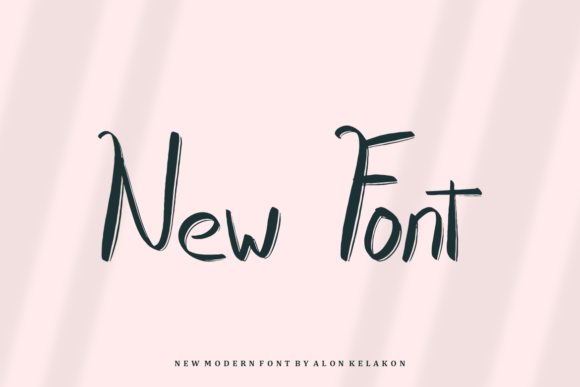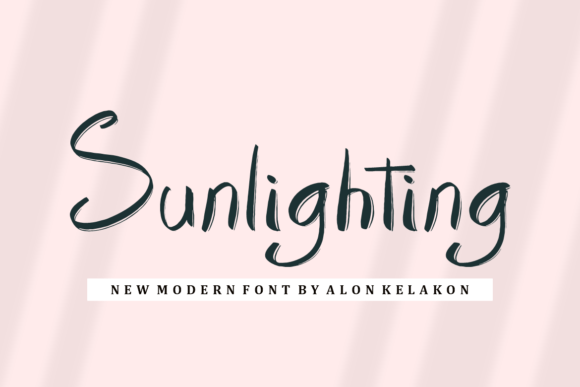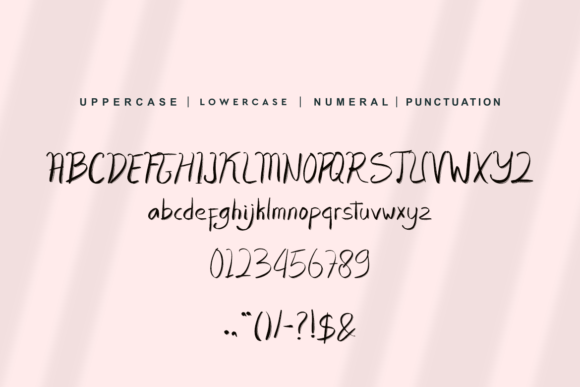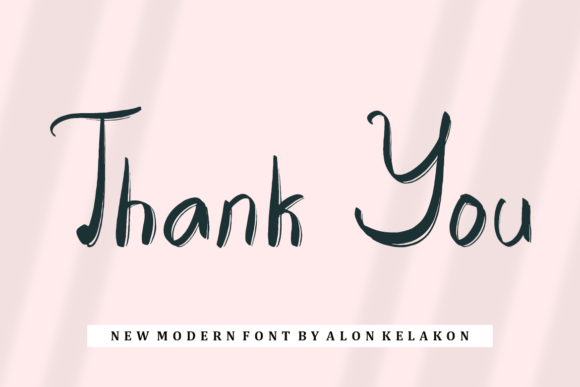
Introduction to Nattaliagoni Font
Have you ever found yourself scribbling down ideas in a notebook, and then later trying to recreate the same handwritten look on your computer? We’ve all been there. But what if you could capture that same natural feel in your designs with just a few clicks? Enter the Nattaliagoni Font, a beautiful and free downloadable font that’s about to become your new go-to design resource.
With its high-quality, handwritten look, the Nattaliagoni Font is the perfect addition to any creative project. Whether you’re working on a design for a transparent background or need a unique touch for your logo, this font is sure to deliver. And the best part? It’s completely free to download, making it an invaluable resource for designers of all levels.
Key Features of Nattaliagoni Font
- High-quality design resource suitable for creative projects, offering a unique and elegant touch.
- Features a transparent background, allowing for easy customization and versatility in design applications.
- Has a medium size, with each character optimized for clear readability at resolutions up to 300 DPI.
- Designed with attention to detail, making it an excellent choice for projects requiring a sophisticated and refined aesthetic.
- Perfect for use in various design contexts, including digital art, graphic design, and print materials.
Honest Review: Nattaliagoni Font
I recently stumbled upon the Nattaliagoni Font and I must say it’s a great addition to any design resource. The font is a high-quality, creative project that can elevate any text-based design.
What works well: ✨ The font comes with a transparent background, making it easy to layer over any background image or color. It’s also a free download, which is a big plus for designers on a budget. The font’s unique design makes it perfect for creative projects that require a touch of elegance.
The font has a clean and modern look, making it suitable for a wide range of design applications, from logos to business cards. The Nattaliagoni Font is a versatile design resource that can be used in various contexts.
One limitation: ⚠️ The font may not be suitable for projects that require a bold, attention-grabbing font. However, for most design applications, the Nattaliagoni Font is a great choice.
Overall, I’m impressed with the Nattaliagoni Font. It’s a solid addition to any design resource and a great option for designers looking for a high-quality, creative font.
Using Nattaliagoni Font in Creative Projects
Tips for Getting the Most Out of Nattaliagoni Font
To get the most out of the Nattaliagoni Font, use it in combination with other design resources, such as high-quality images and graphics. Experiment with different font sizes, colors, and arrangements to create visually appealing designs.
The Nattaliagoni Font is suitable for a variety of design projects, including:
- Graphic designs and logos
- Social media posts and advertisements